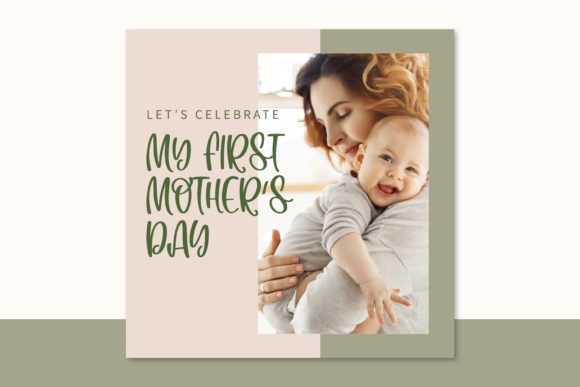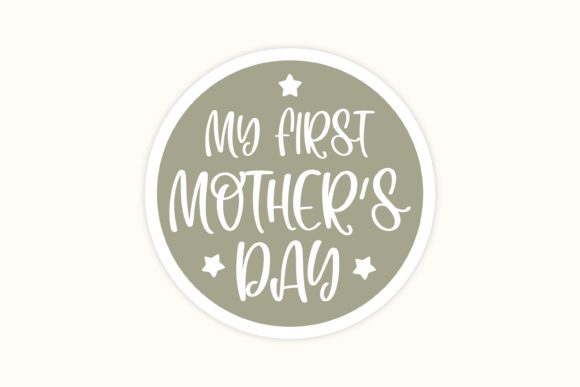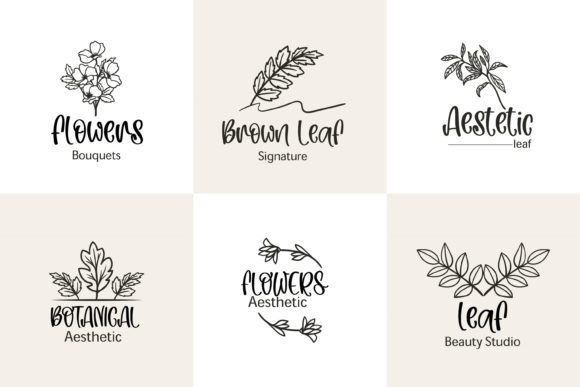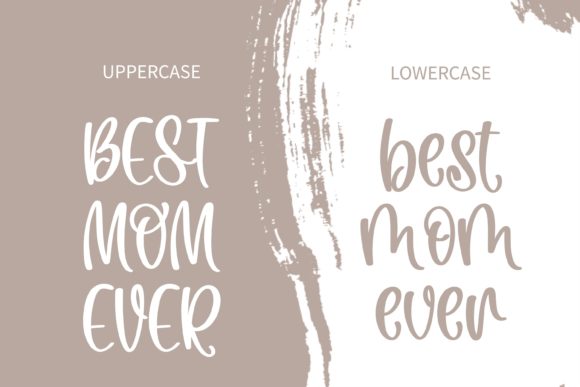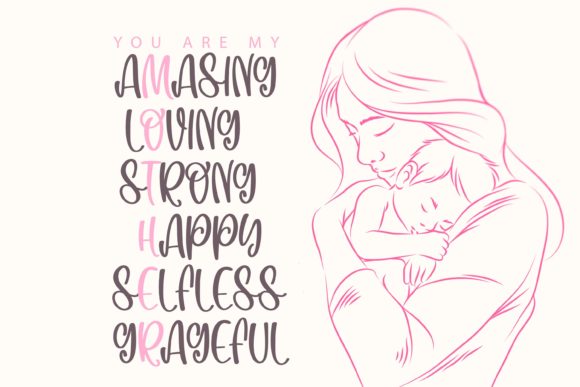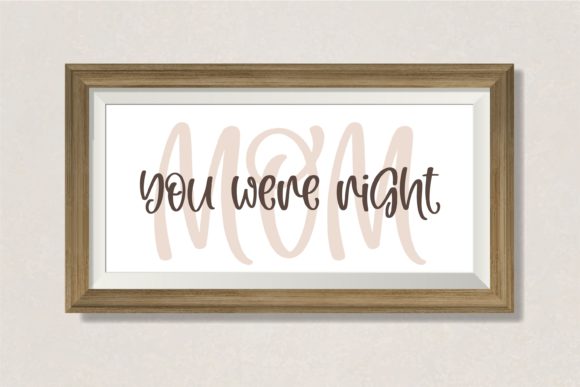
Discover the Timeless Charm of Beautiful Mother Font
Do you ever find yourself browsing through design inspiration boards, feeling stuck, and then suddenly, a font catches your eye? For me, it’s always the little things – the quirky details, the imperfect imperfections, and the effortless charm. That’s exactly what Beautiful Mother Font brings to the table. This sweet and quirky handwritten font is a breath of fresh air in the world of typography, perfect for designers who want to add a touch of whimsy to their projects.
Beautiful Mother Font is more than just a pretty face; it’s a versatile tool that can be used to create stunning wedding invitations, beautiful stationery art, eye-catching social media posts, and so much more. Its unique style makes it a valuable asset for designers who want to stand out from the crowd and bring their creative vision to life.
- Unique Characteristics: The font features a unique, hand-drawn design with elegant and flowing lines, giving it a beautiful, motherly feel that’s perfect for feminine or family-related projects.
Beautiful Mother Font Review
Initially, I was drawn to the whimsical and elegant feel of the Beautiful Mother Font. It works well for various applications, such as:
- ✨ Wedding invitations and stationery: The font’s soft, flowing curves evoke a sense of romance and sophistication.
- ✨ Quirky quotes and sayings: The font’s irregularities add a touch of personality and whimsy to any text.
- ✨ Branding and packaging: The font’s unique style can help a brand stand out in a crowded market.
- ⚠️ Readability: At small font sizes, the Beautiful Mother Font can be difficult to read due to its complex letterforms.
- ⚠️ Consistency: The font’s irregularities can be both a blessing and a curse; while they add character, they can also make it challenging to maintain consistency in design.
Overall, I think the Beautiful Mother Font is a unique and charming choice for designers looking to add some personality to their work. While it may not be the best choice for every project, it’s definitely worth considering for applications where a touch of whimsy and elegance is desired.
Tips for Getting the Most Out of Beautiful Mother Font
To get the most out of Beautiful Mother Font, consider the following tips:
- Use the font in combination with other elegant and feminine design elements.
- Use the font in headings and subheadings to create a clear hierarchy of information.
Beautiful Mother Font is commonly used in:
- Baby shower invitations and decorations.